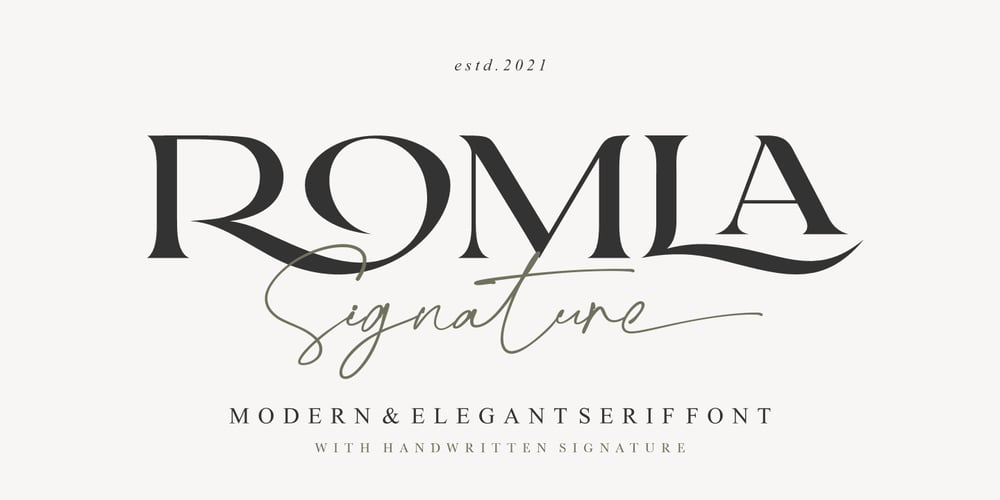
Romla Font Family was designed by Burhan Afif and published by HansCo. Romla contains 2 styles and family package options. Romla is an elegant and classy font with a modern touch. This font come with signature ballpoint style that give you a sleek, elegant look for your logos, business card, wedding invitations, quotes, advertisements, and more. This typeface comes in uppercase and lowercase, with punctuation, symbols, numerals, stylistic alternates and also has multilingual support. Create something beautiful today with this font.Tutorial how to Install & use Alternate / Special Character : https://hanscostudio.com/tutorial/Enjoy!